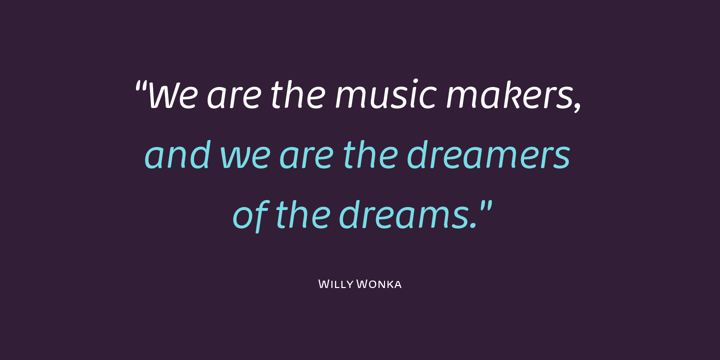
Kardia
by Rodrigo Fuenzalida
Kardia is a versatile type family that lets you compose a wide range of texts, from extensive reading materials to striking, eye-catching headlines and titles. Features include ample proportions that have been revised to maintain similar line performance across all its weights. It also has an elevated x-height which facilitates reading in small bodies, in addition to help building solid headlines. Inspired by brush lettering, it takes many features from calligraphic strokes and the foundational style, adapted to a contemporary typographic language. It has 4 weights, all of them including their corresponding italics, small caps and character set that supports Central, Western and South Eastern European, Afrikaans and many more.